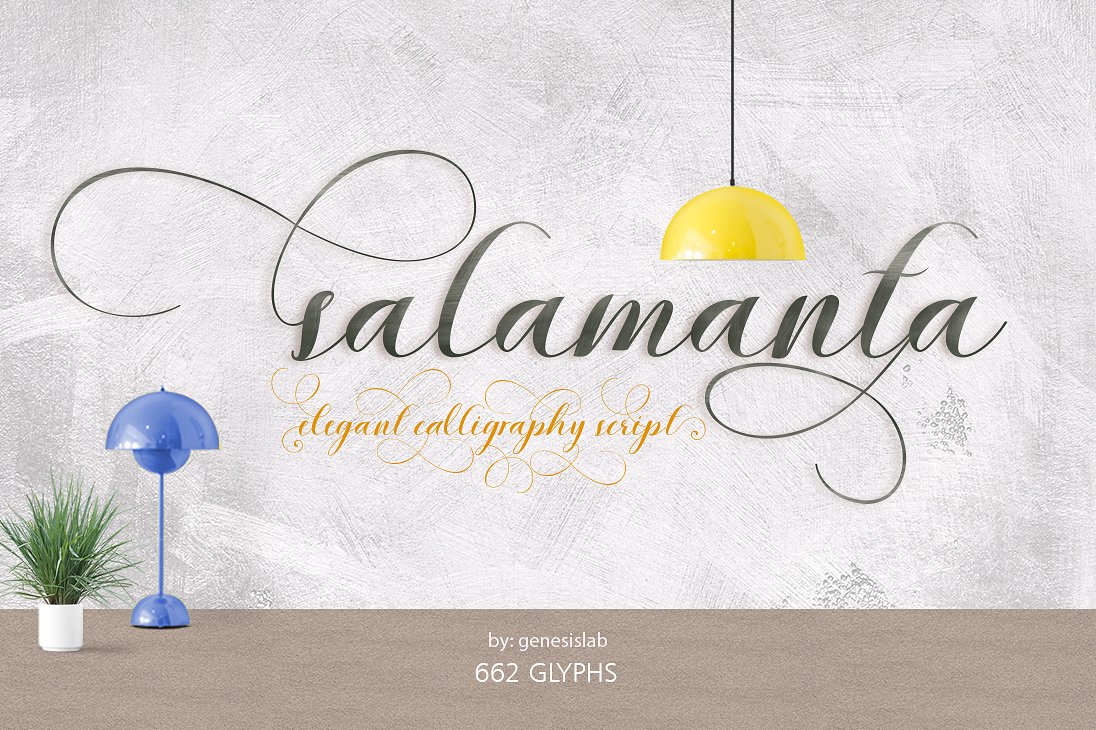
Salamanta Script
Salamanta Script Font
Recent Salamanta Script a beautiful modern calligrapher style cover features in it contains a complete set of letters lower and uppercase letters, assorted punctuation, numbers, and multilingual support. font also contains several ligatures and Stylistic style, Alternative Set, incorporated Swash Stylistic (662 glyphs) 181+ and 481 alternate characters. for those of you who have software that is able to work OpenType (Photoshop / Illustrator / InDesign).
Salamanta Script